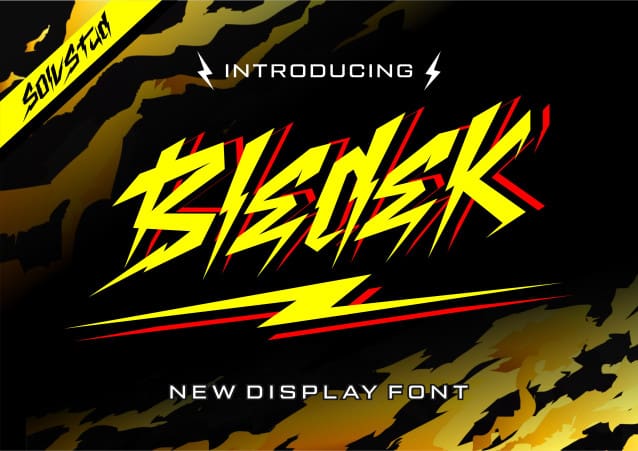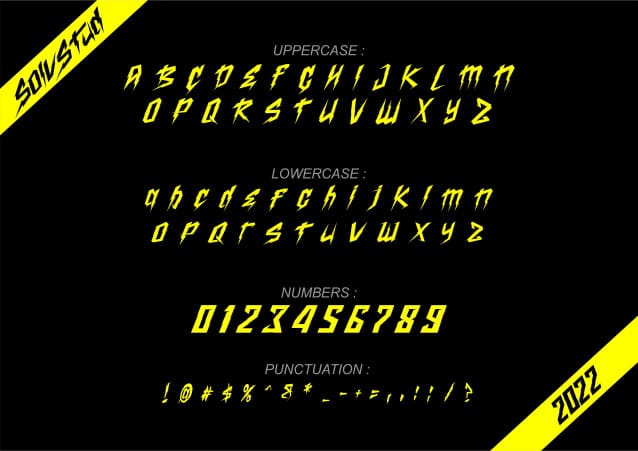
Bledek Display Font
Bledek Display Font is a cool and unique display font. Its bold and thunder-like characters are perfect for creating a large variety of trendy designs that need to make an impact.